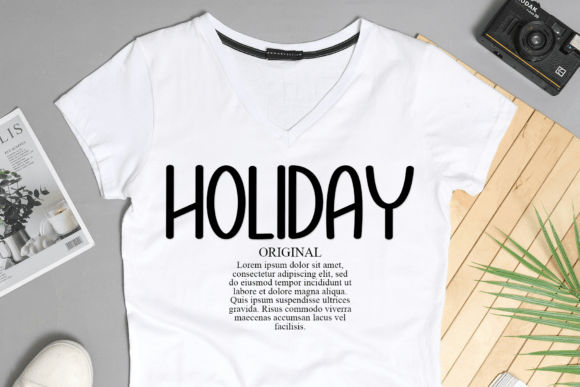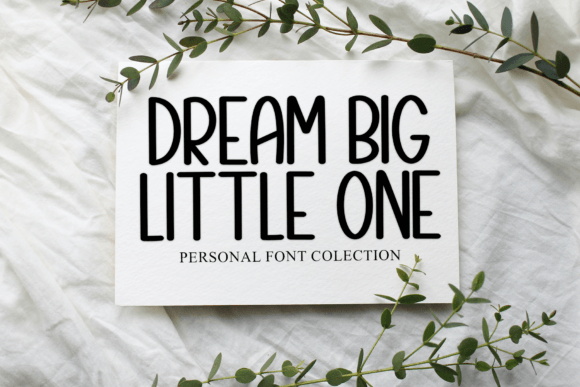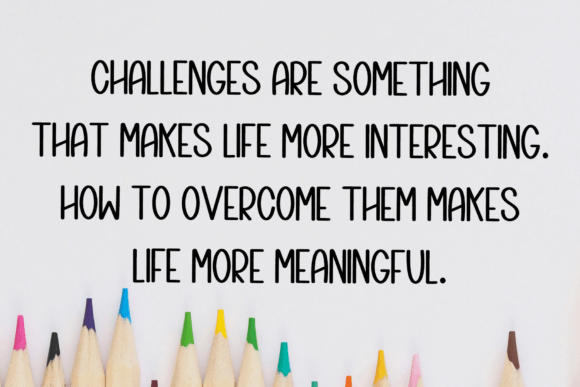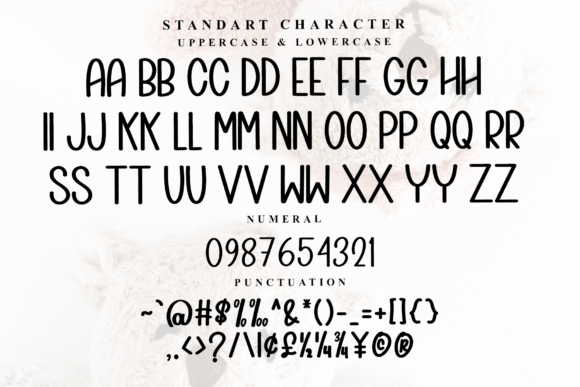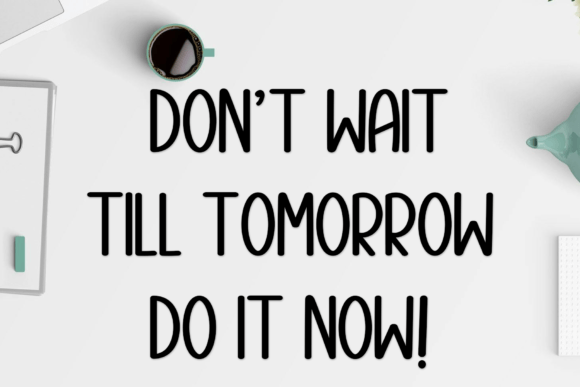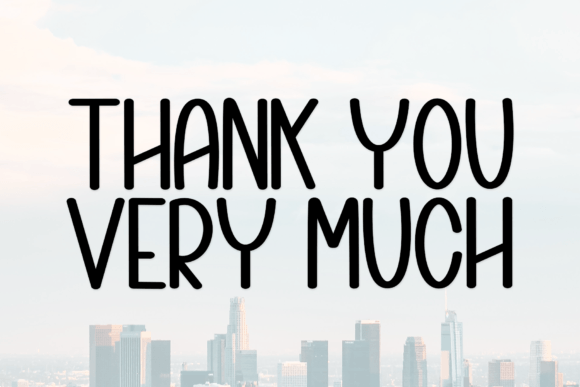
Introducing Drawing Sandwich Font: The Perfect Addition to Your Creative Projects
Are you a designer, crafter, or DIY enthusiast looking for a unique and playful font to add a personal touch to your creations? Look no further than the Drawing Sandwich Font! This delightful, handwritten font is perfect for anyone who wants to infuse their designs with a fun, casual vibe.
What is Drawing Sandwich Font?
Drawing Sandwich Font is a playful, handwritten font that boasts a fun, casual style. Its letters appear as if they were drawn by hand, giving it a creative and personal feel that’s hard to resist. The font’s imperfections and quirks make it look like it was crafted with love and care, adding a touch of warmth to any design.
Characteristics of Drawing Sandwich Font
So, what makes Drawing Sandwich Font so special? Here are just a few of its key characteristics:
- Handwritten style: Drawing Sandwich Font has a distinctly handwritten feel, with letters that look like they were drawn by hand.
- Playful and casual: This font is perfect for designs that require a fun, laid-back vibe.
- Unique and creative: The font’s imperfections and quirks make it a one-of-a-kind addition to any design.
- Perfect for crafty projects: Drawing Sandwich Font is ideal for designers, crafters, and DIY enthusiasts who want to add a personal touch to their creations.
Uses for Drawing Sandwich Font
So, what can you use Drawing Sandwich Font for? The possibilities are endless! Here are just a few ideas to get you started:
- Posters and flyers: Add a playful touch to your posters and flyers with Drawing Sandwich Font.
- Cards and invitations: Make your cards and invitations stand out with this unique and creative font.
- DIY projects: Use Drawing Sandwich Font to add a personal touch to your DIY projects, such as crafts, scrapbooking, and more.
- Social media graphics: Add a fun and casual vibe to your social media graphics with this playful font.
Why Choose Drawing Sandwich Font?
With so many fonts to choose from, why should you choose Drawing Sandwich Font? Here are just a few reasons:
- Unique and creative: This font is a one-of-a-kind addition to any design, setting it apart from more traditional fonts.
- Easy to read: Despite its playful style, Drawing Sandwich Font is easy to read and understand.
- Versatile: This font can be used for a wide range of projects, from posters and flyers to cards and DIY projects.
- Fun and engaging: Drawing Sandwich Font adds a fun and engaging touch to any design, making it perfect for projects that require a playful vibe.
Tips for Using Drawing Sandwich Font
Here are a few tips for getting the most out of Drawing Sandwich Font:
- Use it sparingly: While Drawing Sandwich Font is perfect for adding a playful touch to your designs, it’s best to use it sparingly to avoid overwhelming the reader.
- Pair it with other fonts: Experiment with pairing Drawing Sandwich Font with other fonts to create a unique and visually appealing design.
- Experiment with colors: Try out different colors and color combinations to find the perfect match for your design.
In conclusion, Drawing Sandwich Font is a playful, handwritten font that’s perfect for designers, crafters, and DIY enthusiasts who want to add a unique and creative touch to their projects. With its fun, casual style and easy-to-read letters, this font is sure to become a favorite in your design arsenal. So why wait? Give Drawing Sandwich Font a try today and see the difference it can make in your designs!